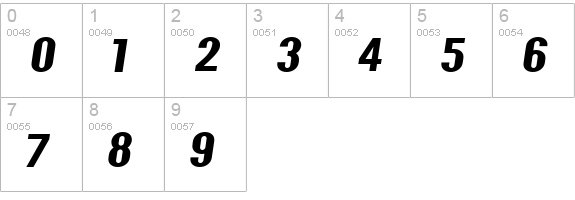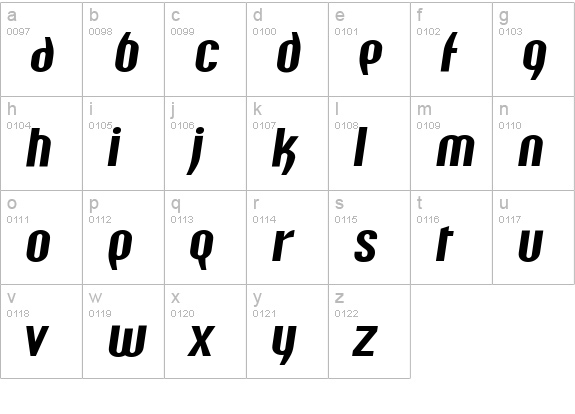
Y2K Analog Legacy Italic is a distinctive, italic variant in the Y2K typeface family \xE2\x80\x94 well suited to design and typography projects.
Y2K Analog Legacy Italic font is a captivating and versatile typeface that exudes a sense of nostalgia with a modern twist. Its sleek and sophisticated design is perfect for adding a touch of elegance to any project. The italic style adds a dynamic and stylish flair, making it ideal for both headers and body text. What sets Y2K Analog Legacy Italic font apart is its unique blend of traditional and contemporary elements, making it suitable for a wide range of design applications. Whether you're creating branding materials, editorial layouts, or digital designs, this font is sure to make a statement. And the best part? Y2K Analog Legacy Italic font is available for free download at FontsMarket.com. So, don't miss out on the opportunity to enhance your projects with this stunning font without breaking the bank. Download it today and unleash your creativity with Y2K Analog Legacy Italic font!